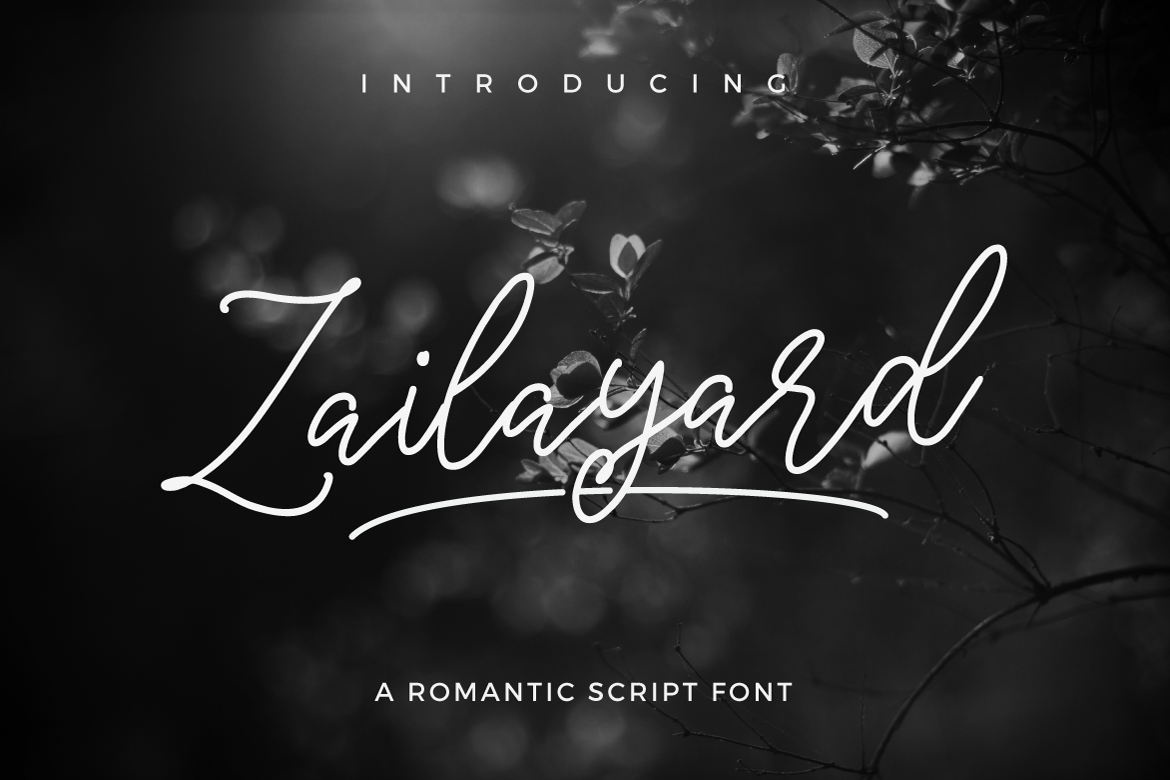
Zailayard is a romantic script font. It is suitable for any design needs, modern invitation design, branding, stationery design, blog design, modern advertising design, invitation, Art Quote, Home decor, Book/Cover Title, Invitation, special events, birthday, custom mug, pillow, t-shirts, any brush lettering needs and more.